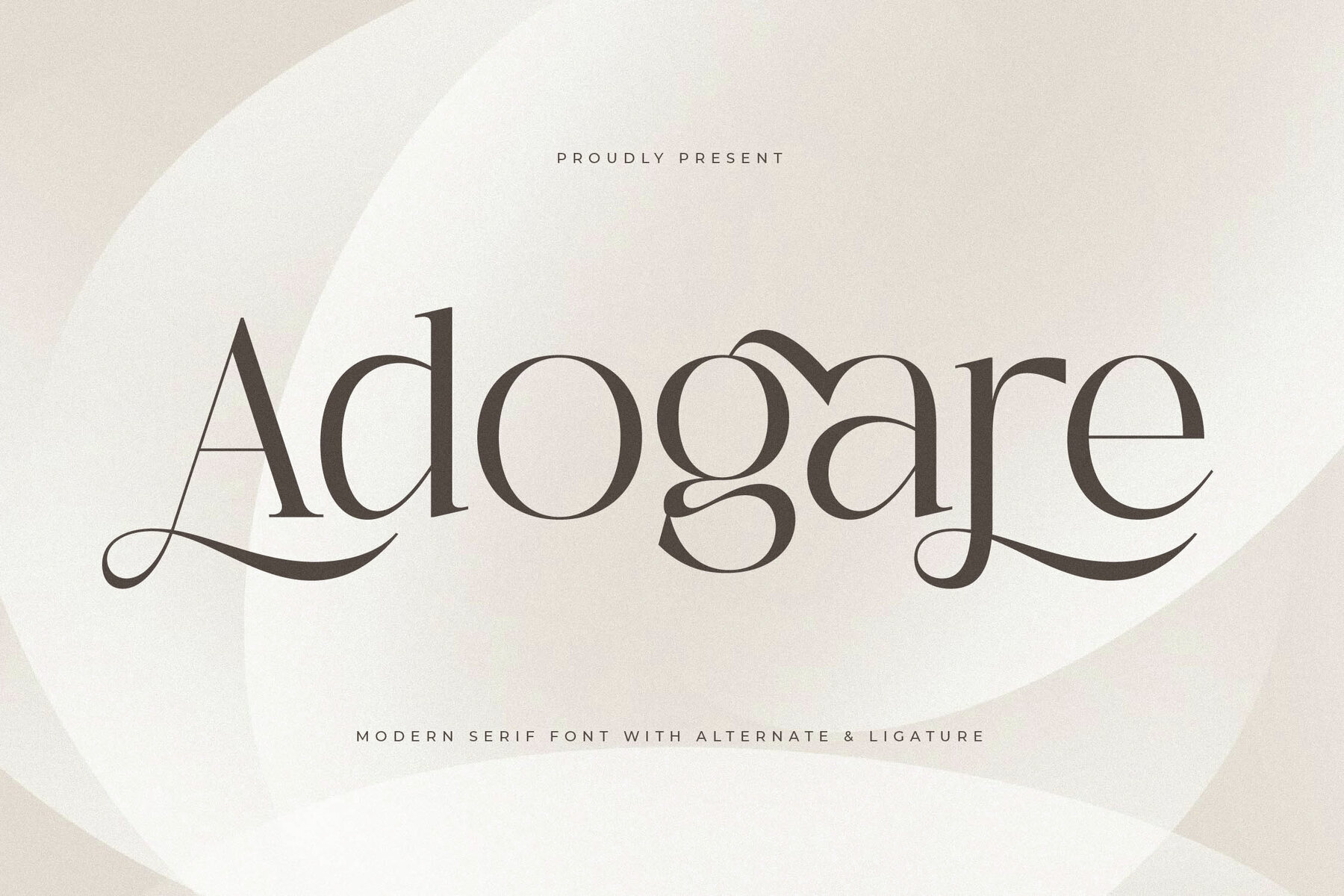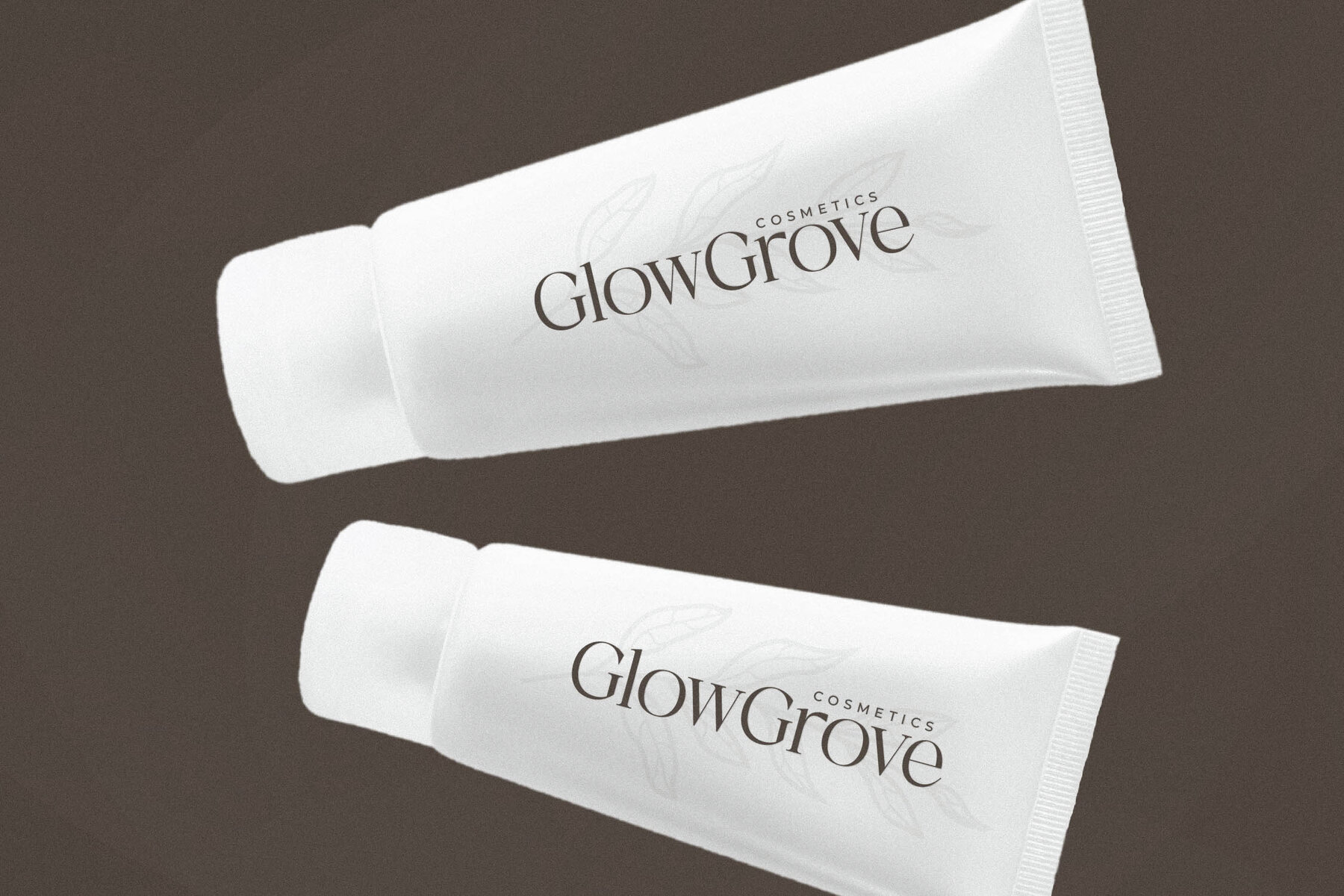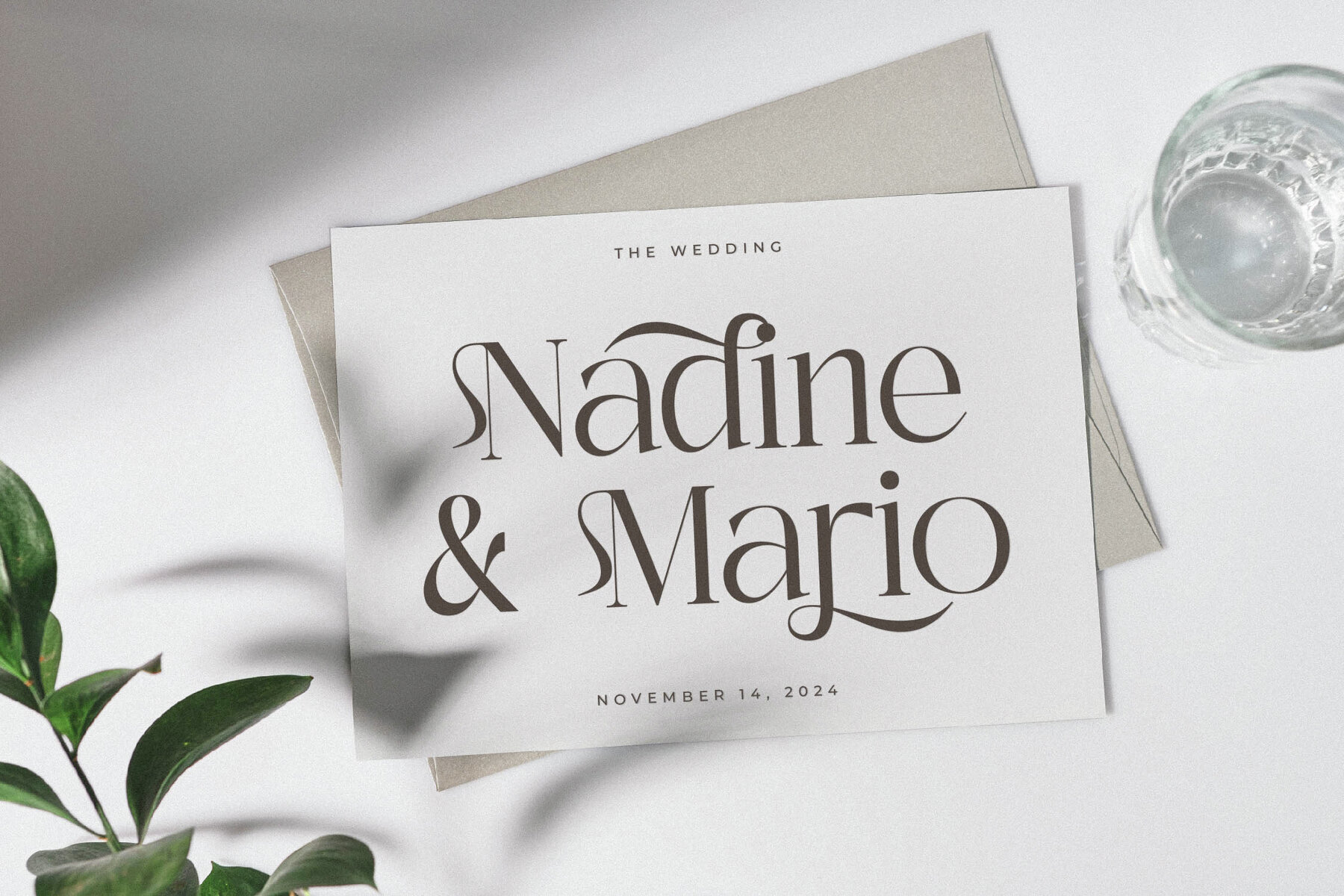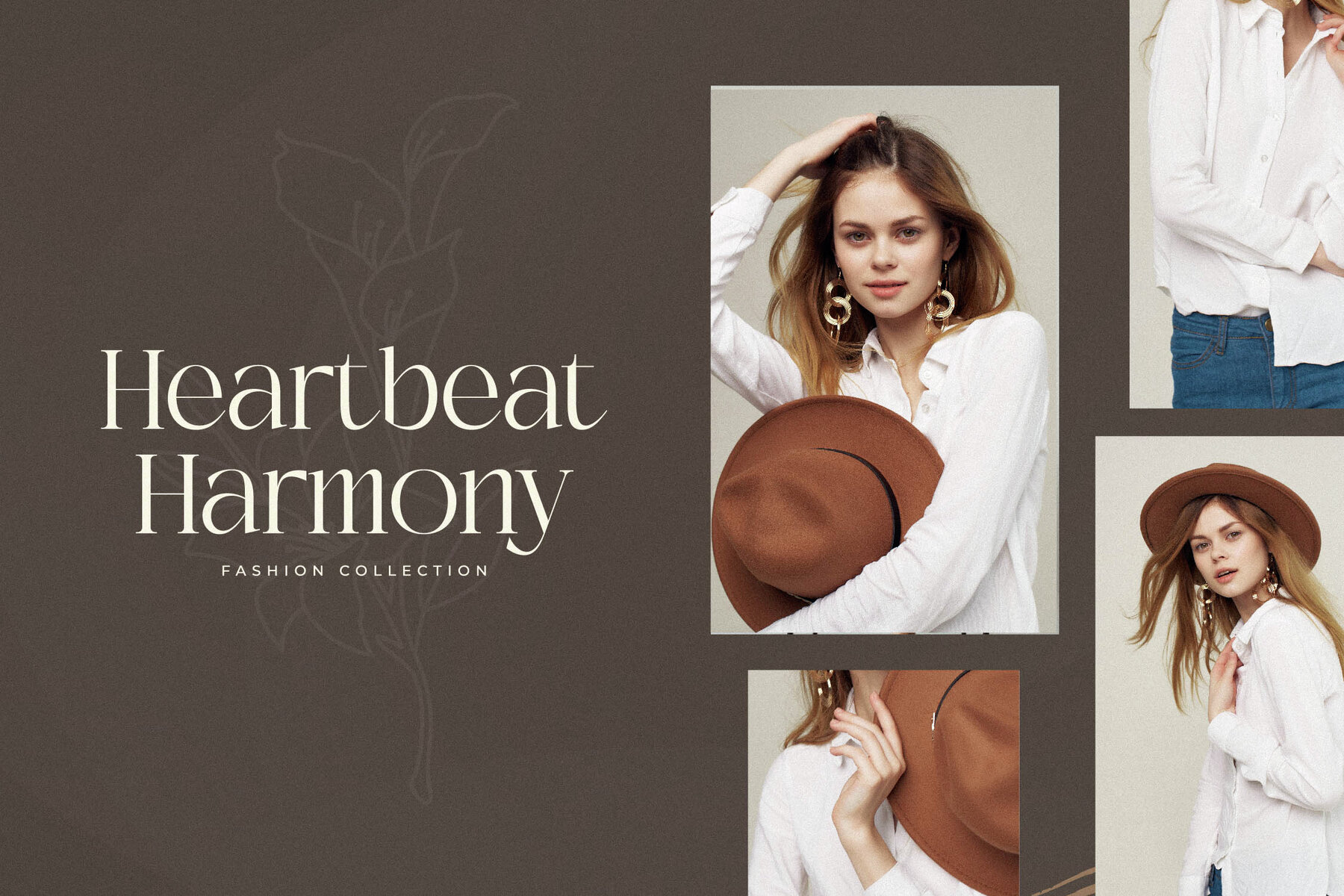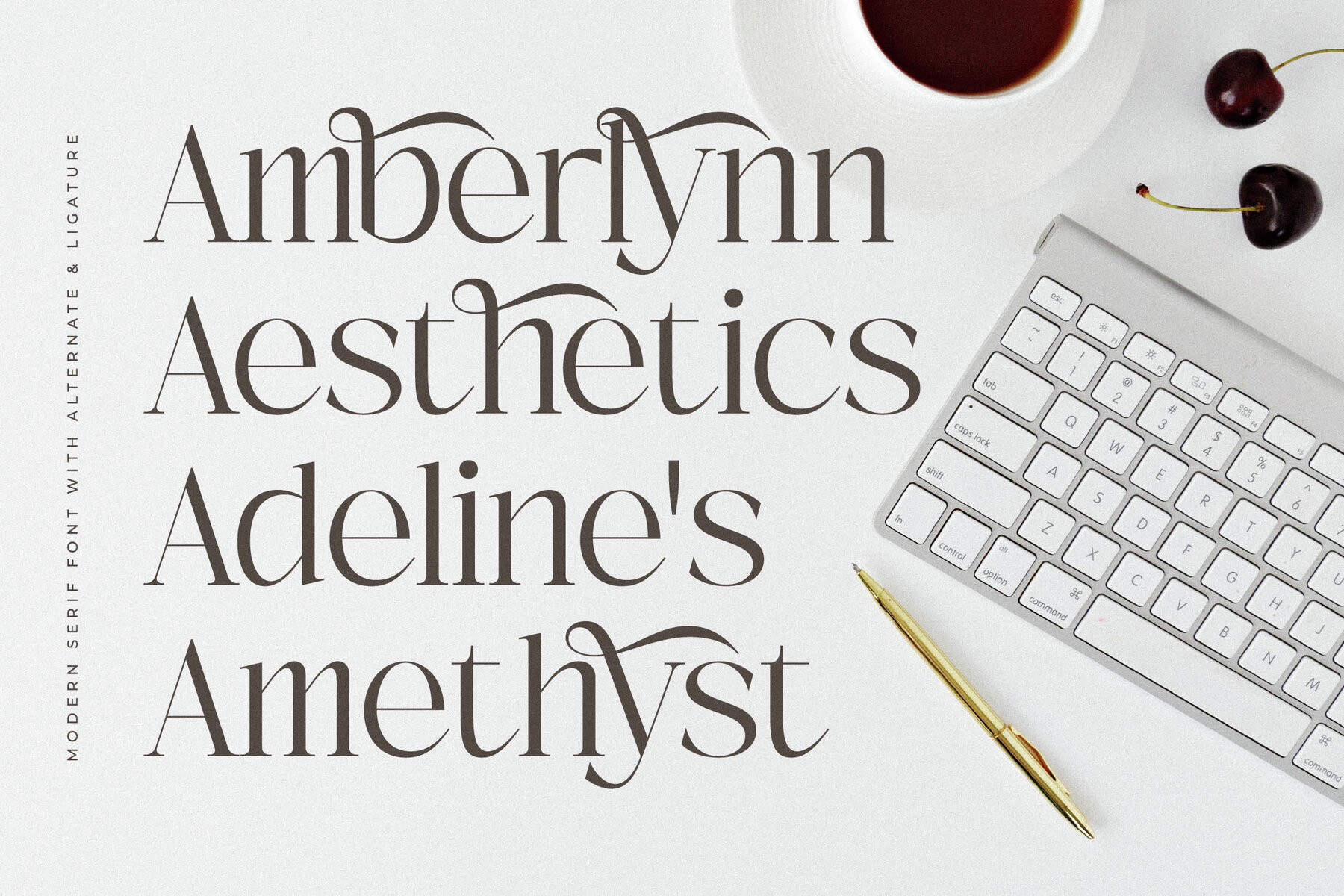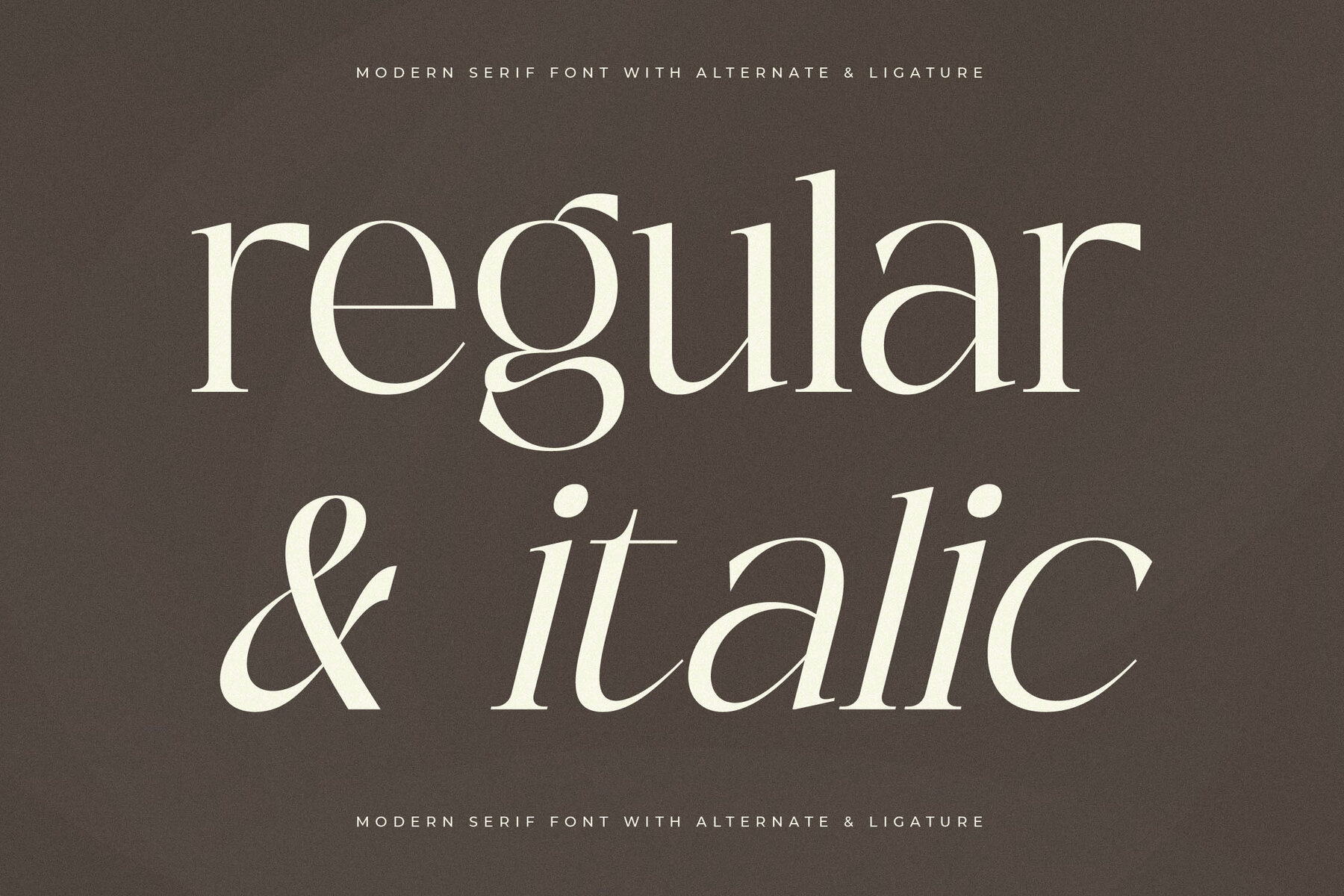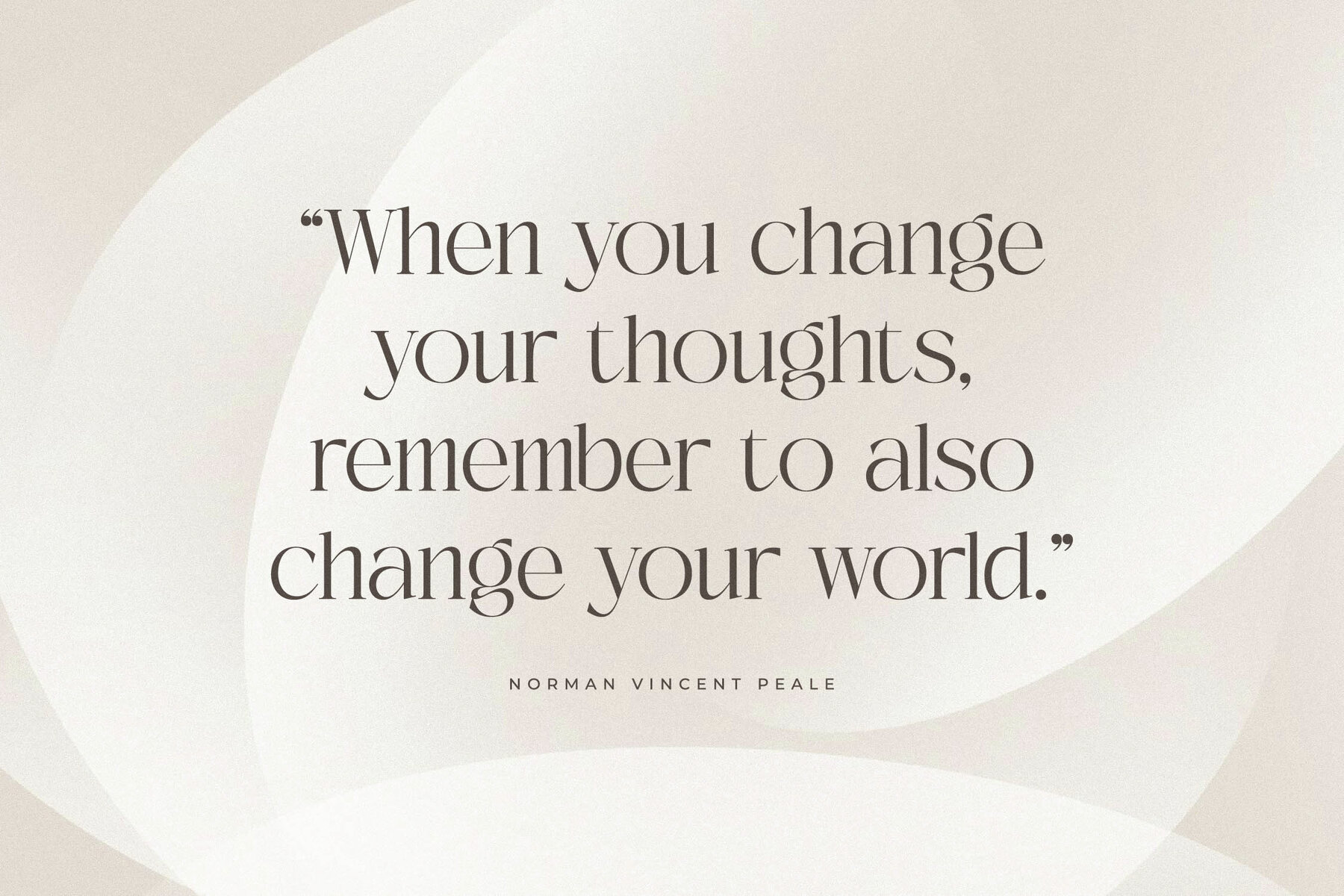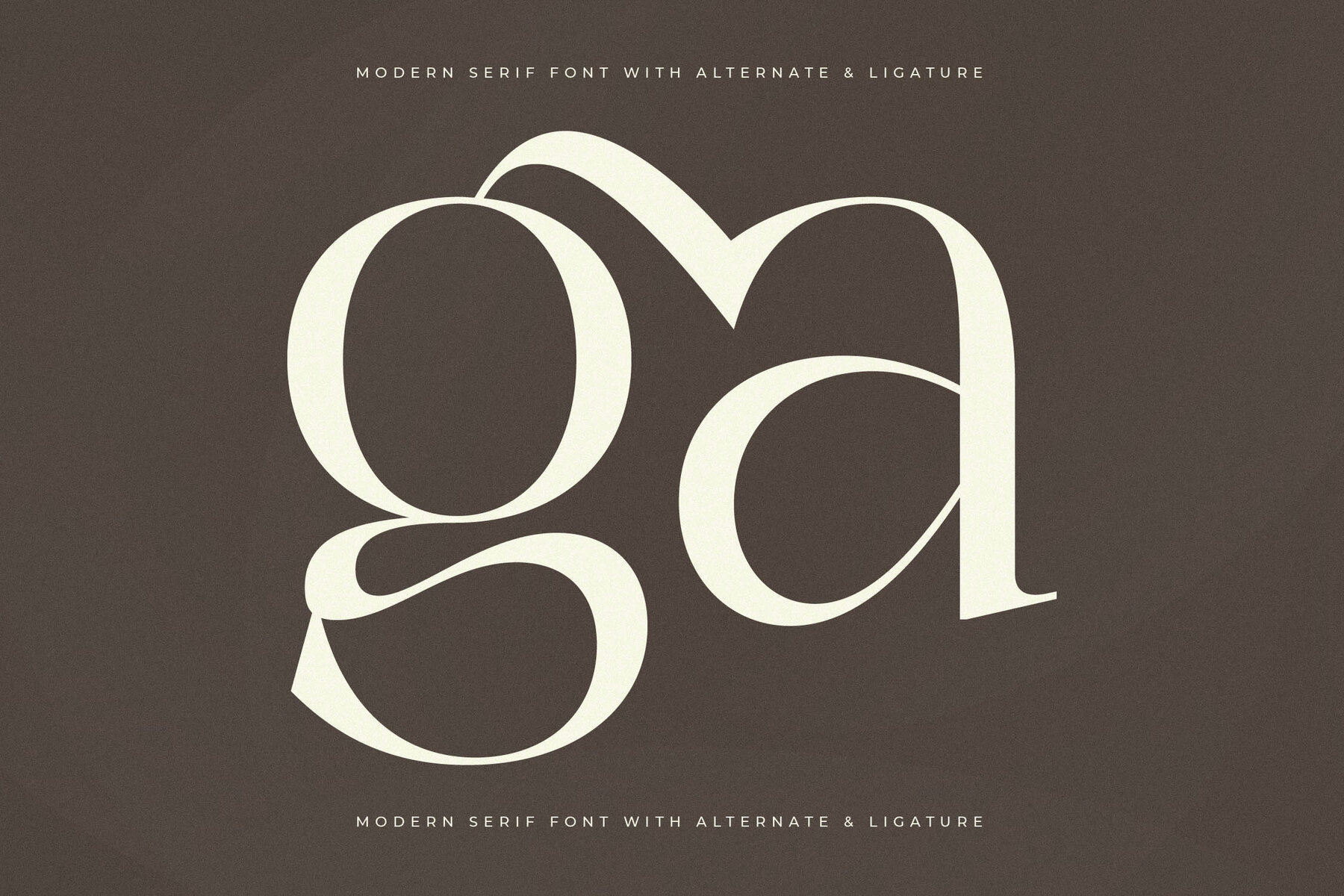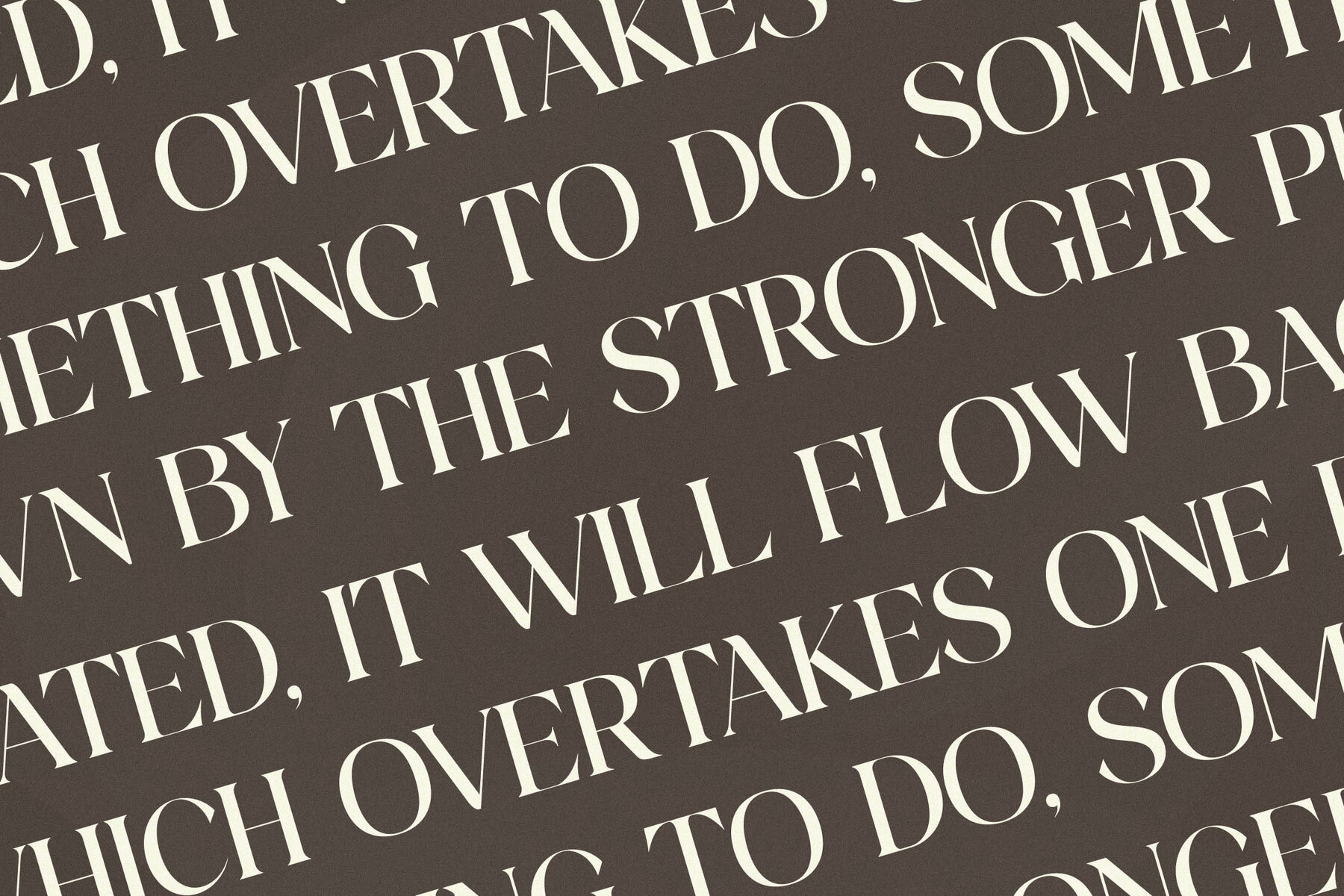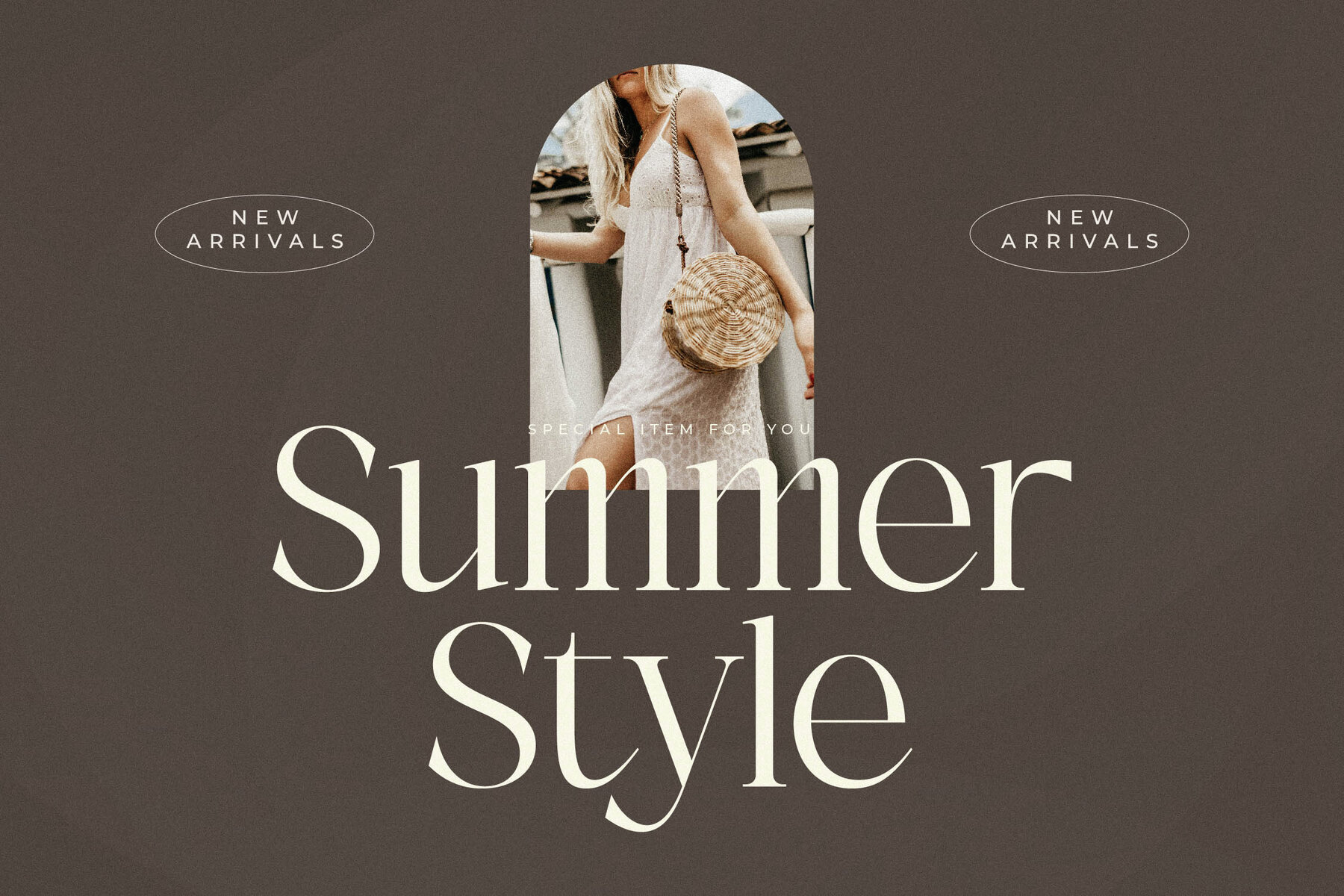
Adogare Font
Discover the elegance and sophistication of Adogare, a modern serif typeface meticulously crafted by Storytype Studio. This typeface offers a unique blend of classic and contemporary styles, making it ideal for designing luxurious logos, book or movie titles, fashion brands, magazines, and much more. Elevate your design with Adogare's distinctive charm and versatile appeal.Introducing Adogare Typeface